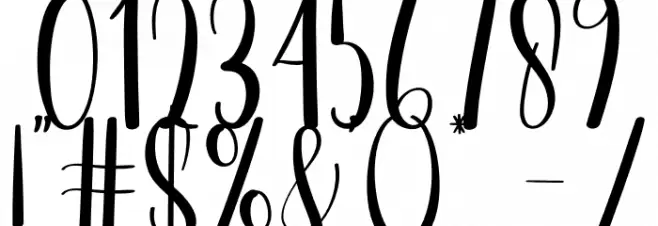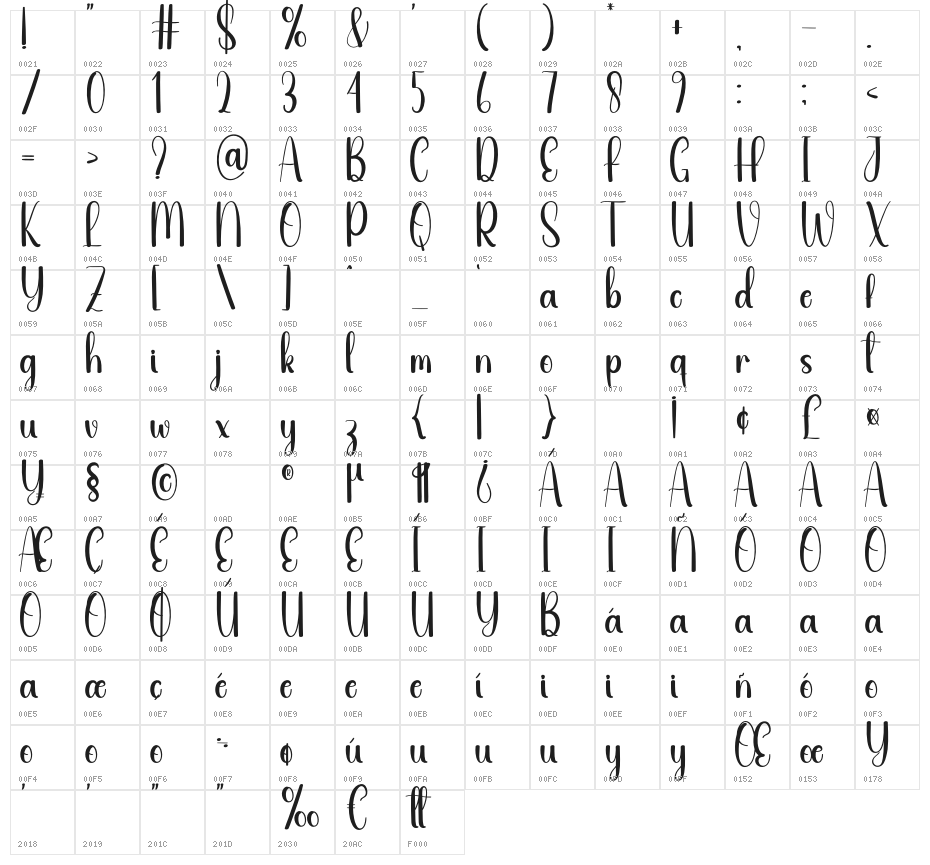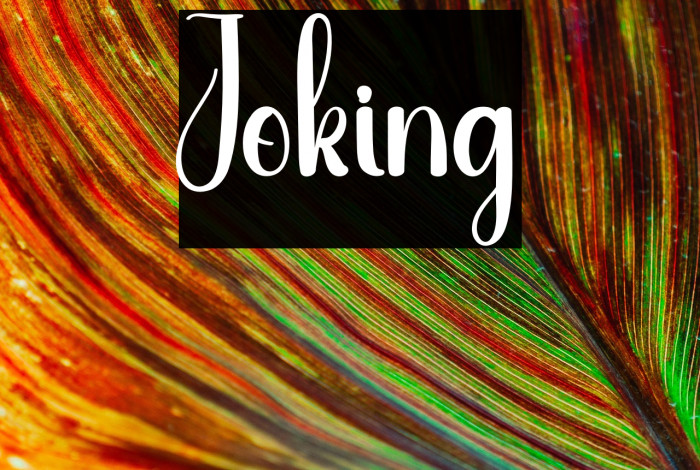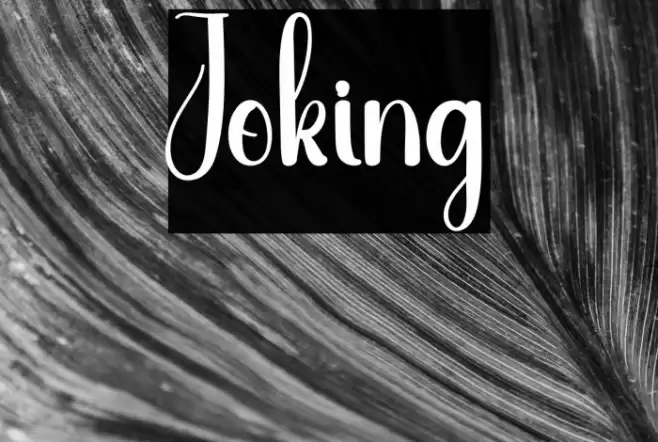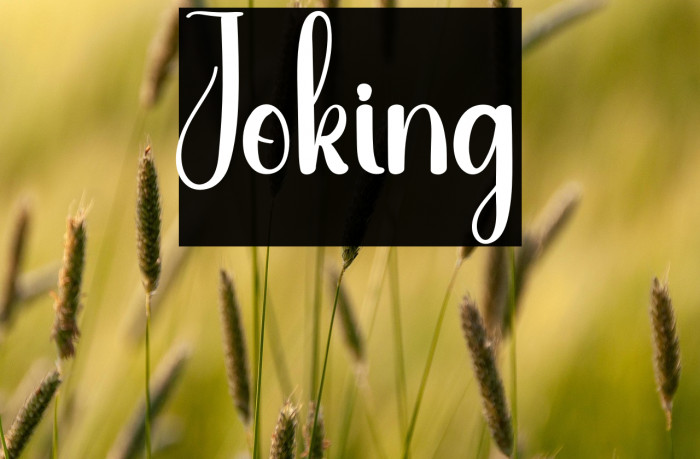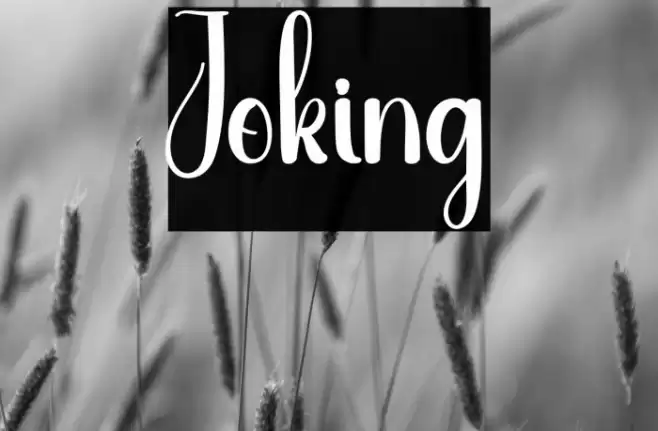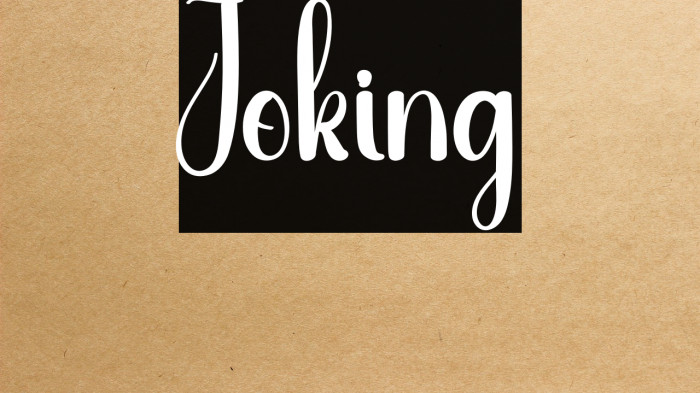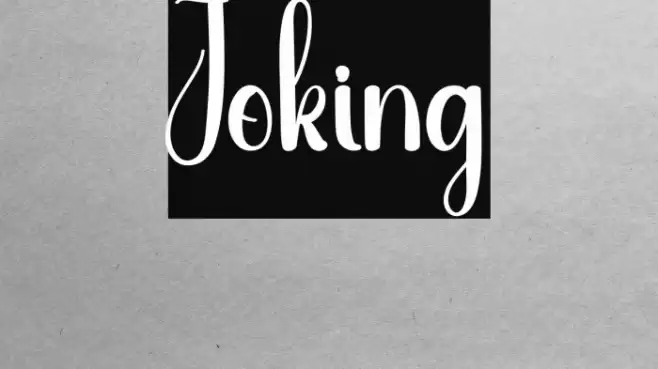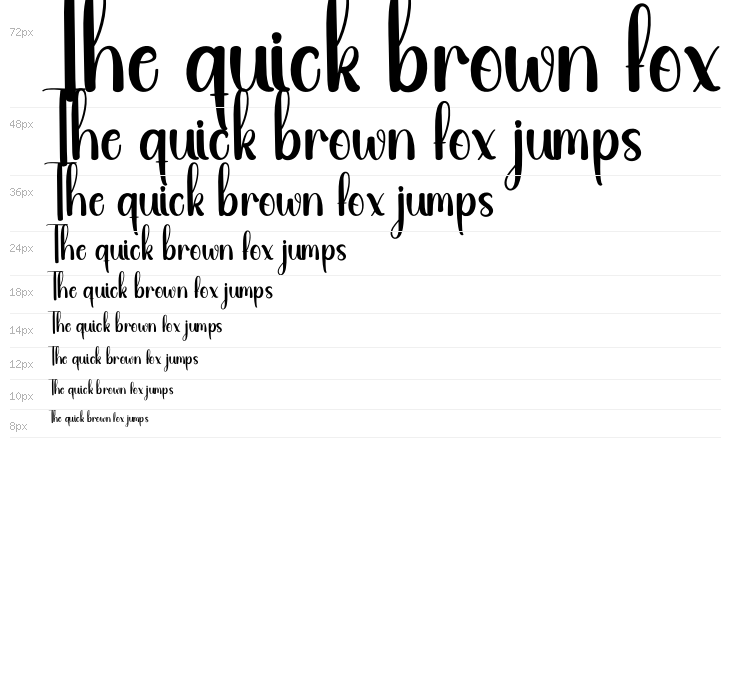
Joking Font
Joking Description
This font features a playful and whimsical design with tall, narrow characters and a handwritten style. The letters have a unique flow, with some characters extending into loops and swirls, adding a touch of elegance and creativity. The uppercase letters are bold and striking, while the lowercase letters maintain a consistent style with a slightly more delicate appearance. Numbers and special characters follow the same playful theme, making this font suitable for creative and artistic projects. The overall look is both modern and fun, perfect for adding personality to any design.
| Proposed Projects | Ideal for greeting cards, invitations, playful branding, children's books, and creative posters. |